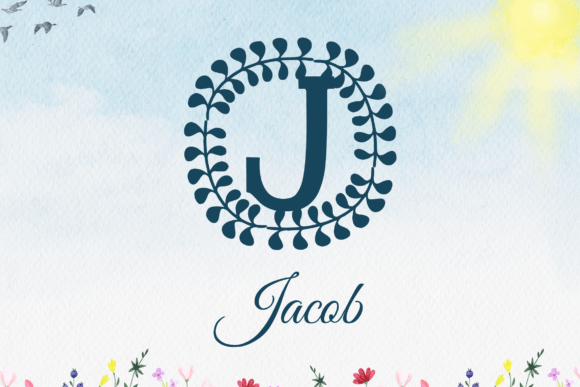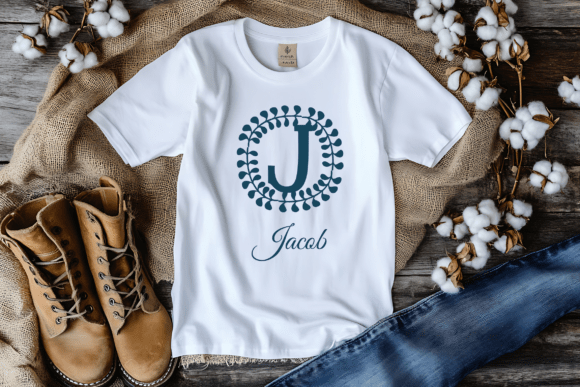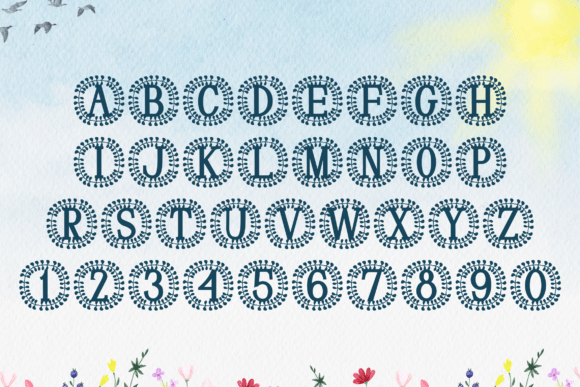
Introduction to Florencia Monogram Font
Do you remember that moment when you saw your wedding invitation for the first time, and it felt like the perfect reflection of your love story? The elegant script, the delicate floral motifs, and the way your names danced together in perfect harmony? For designers, creating that perfect visual identity for a special occasion or a personal project is a true joy. And when you have the right tools at your disposal, the possibilities are endless.
Enter Florencia Monogram Font, a stunning serif monogram font designed to bring timeless beauty and effortless personalization to your creative projects. With its elegant proportions, subtle botanical cues, and classic serif structure, this font is a design resource like no other. Whether you’re working on a wedding suite, a boutique branding project, or a gift item, Florencia Monogram Font is the perfect choice to elevate your design to the next level.
Key Features of Florencia Monogram Font
- High-quality design resource perfect for creative projects, including wedding invitations, event branding, and more.
- Includes a transparent background option for easy customization and seamless integration with various design elements.
- Designed with a unique, elegant aesthetic, featuring intricate details and ornate flourishes that add a touch of sophistication to any design project.
- Perfect for designers and artists looking for a high-quality, free design resource to elevate their creative projects.
I recently had the chance to experiment with the Florencia Monogram Font, and I must say it’s a fantastic design resource for any creative project. This free download is perfect for adding a touch of elegance and sophistication to your work.
- ✨ The high-quality design of the font is evident, making it a great addition to any design project.
- ✨ The transparent background option provides a seamless integration with any background image or color.
- ✨ The font is highly versatile and can be used for a wide range of creative projects, from wedding invitations to business cards.
- ⚠️ The font is a monogram font, which may limit its use for certain projects that require a more straightforward font style.
Overall, I’m impressed with the Florencia Monogram Font and would highly recommend it to anyone looking for a high-quality design resource for their creative project. It’s a great addition to any design library, and the transparent background option makes it a versatile tool for any designer.
Getting the Most Out of Florencia Monogram Font
To get the most out of Florencia Monogram Font, use it for designs that require a touch of sophistication and elegance. You can use it for logos, business cards, and other design projects that require a high-quality font.
Florencia Monogram Font is commonly used for:
- Business logos and branding
- Personalized gifts and decorations